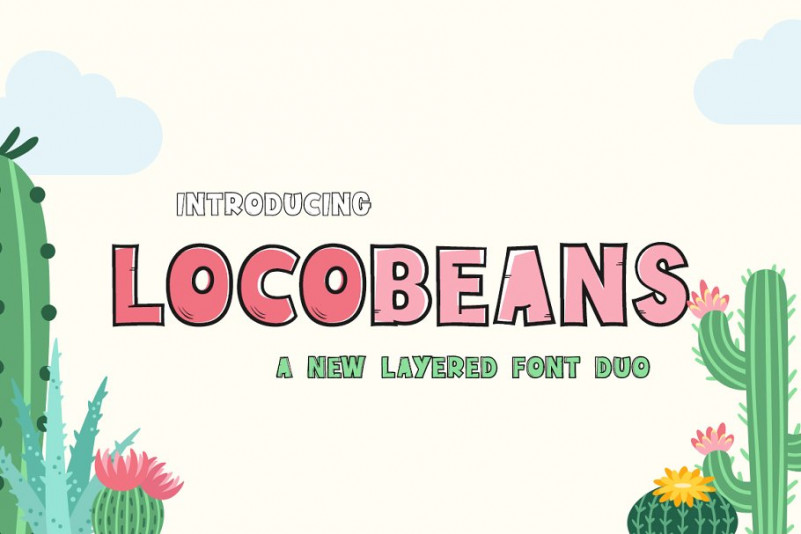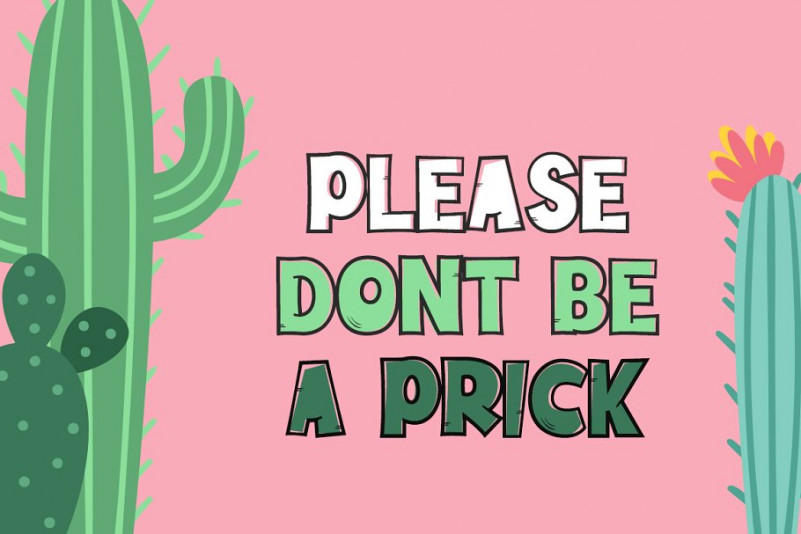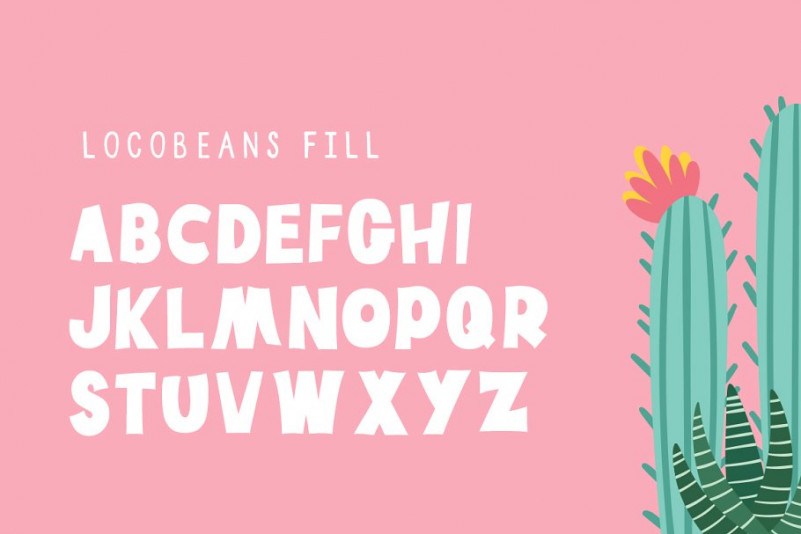
Locobeans Font
Locobeans is a fabulous new font duo that takes a new look at a Sans font. This is far from boring as we basically took a classic sans style, threw it on a fun bus and drove it around until it announced it was cool enough to be available! So grab your copy now with both versions (outline and fill) working well alone or looking rad as together!